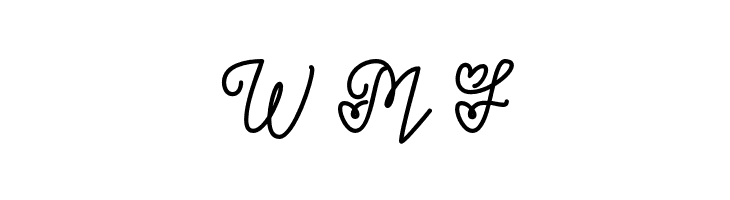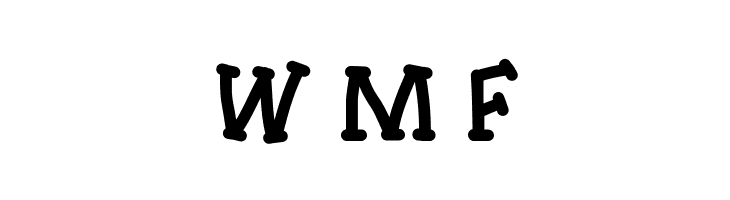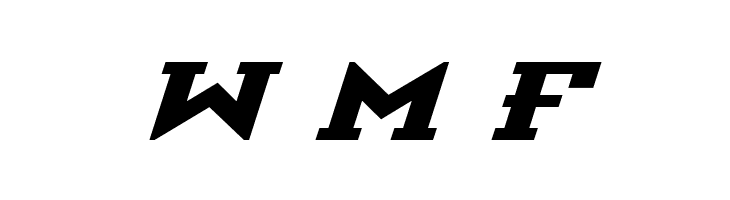
A romantic script font with heart motifs and a whimsical, flowing style.
A decorative font with maze-like, geometric patterns in each character.
A bold, geometric font with Art Deco influences and decorative elements.
A playful and whimsical font with vintage theatrical flair.
A bold and playful font with thick, rounded strokes and a whimsical style.
A bold and italicized font with a modern, dynamic style.
A whimsical, flowing script font with elegant loops and swirls.
A bold, handwritten font with a brush-like texture and dynamic style.
A bold, italicized typeface with strong strokes and modern appeal.
A modern, geometric sans-serif font with clean lines and uniform stroke width.
A modern, clean sans-serif font with uniform stroke width and rounded edges.
A modern, geometric font with a futuristic and sleek design.
A playful, rounded font with bold, bubbly characters.
A bold, condensed typeface with a modern and clean design.
Extra bold and condensed font with a modern, impactful style.
A modern, extra-condensed sans-serif font with semi-bold weight and clean design.
A condensed, extra bold sans-serif font with a modern and impactful style.
A clean, modern, semi-condensed font with semi-bold weight, ideal for professional use.
A modern, condensed sans-serif font with medium weight and excellent readability.
A clean, modern sans-serif font with a semi-condensed, light structure.
A bold, semi-condensed font with a modern and robust style.
A modern, extra light, condensed typeface with high legibility.
A clean, modern sans-serif font with excellent readability.
A modern, semi-condensed sans-serif font with light weight and low contrast.
A modern, light, and minimalistic sans-serif font with low contrast.
A classic serif font with elegant and legible numerals and special characters.